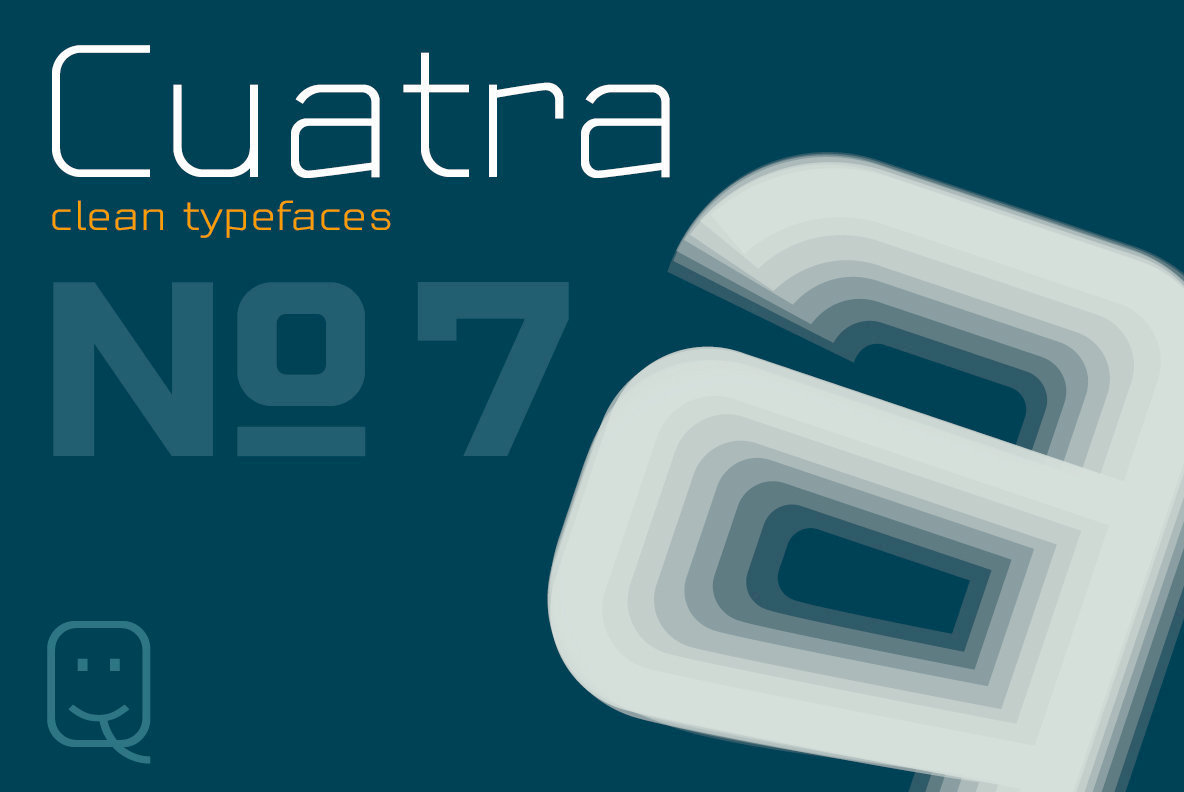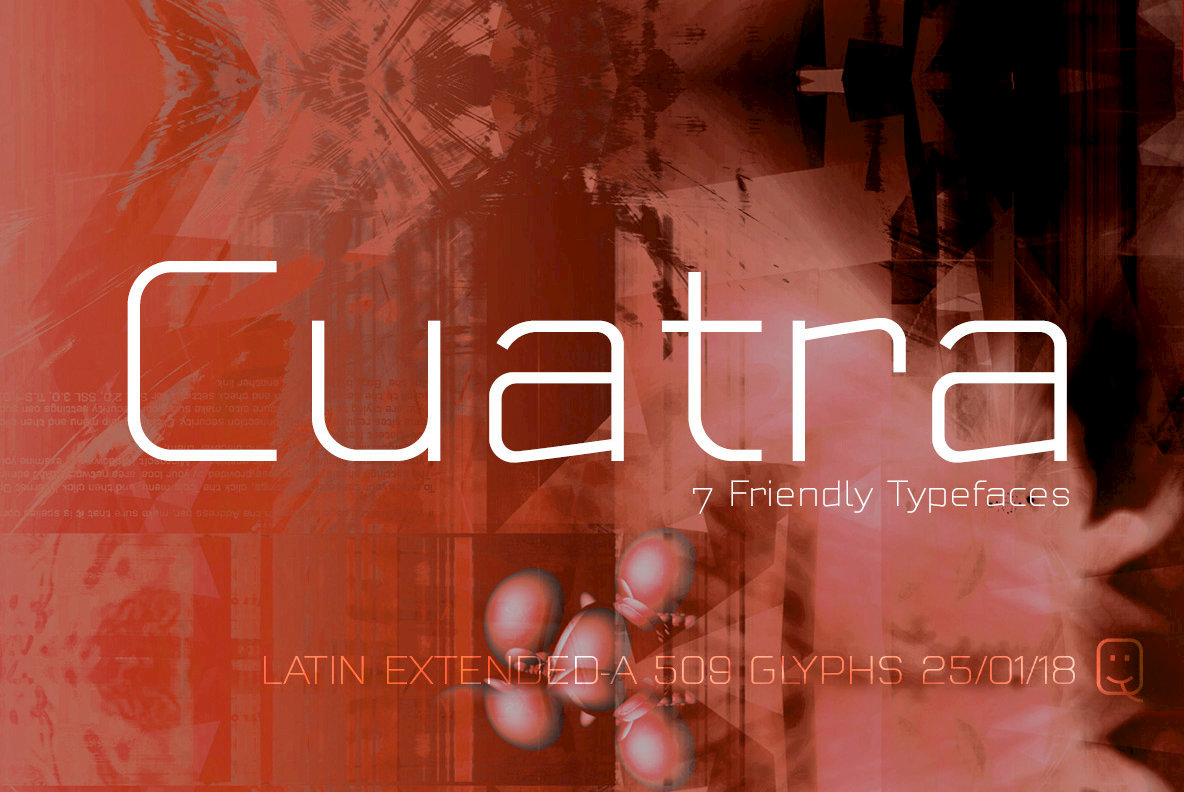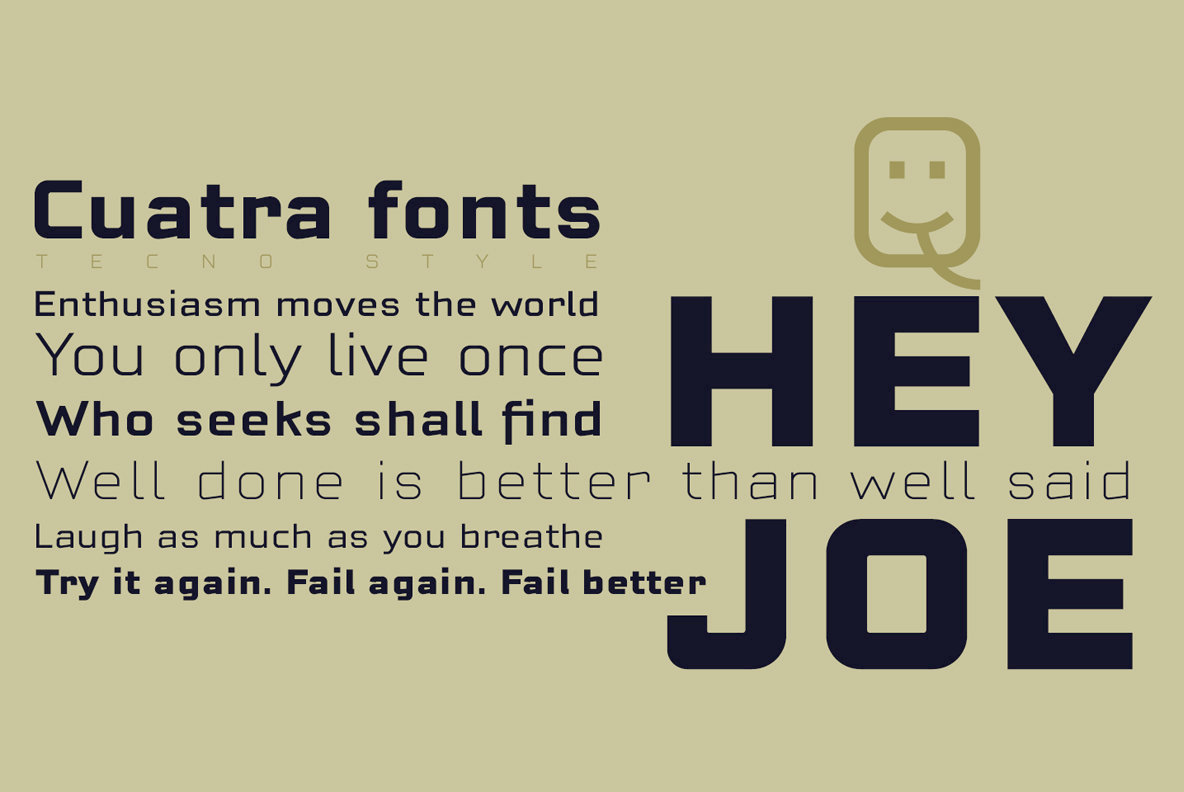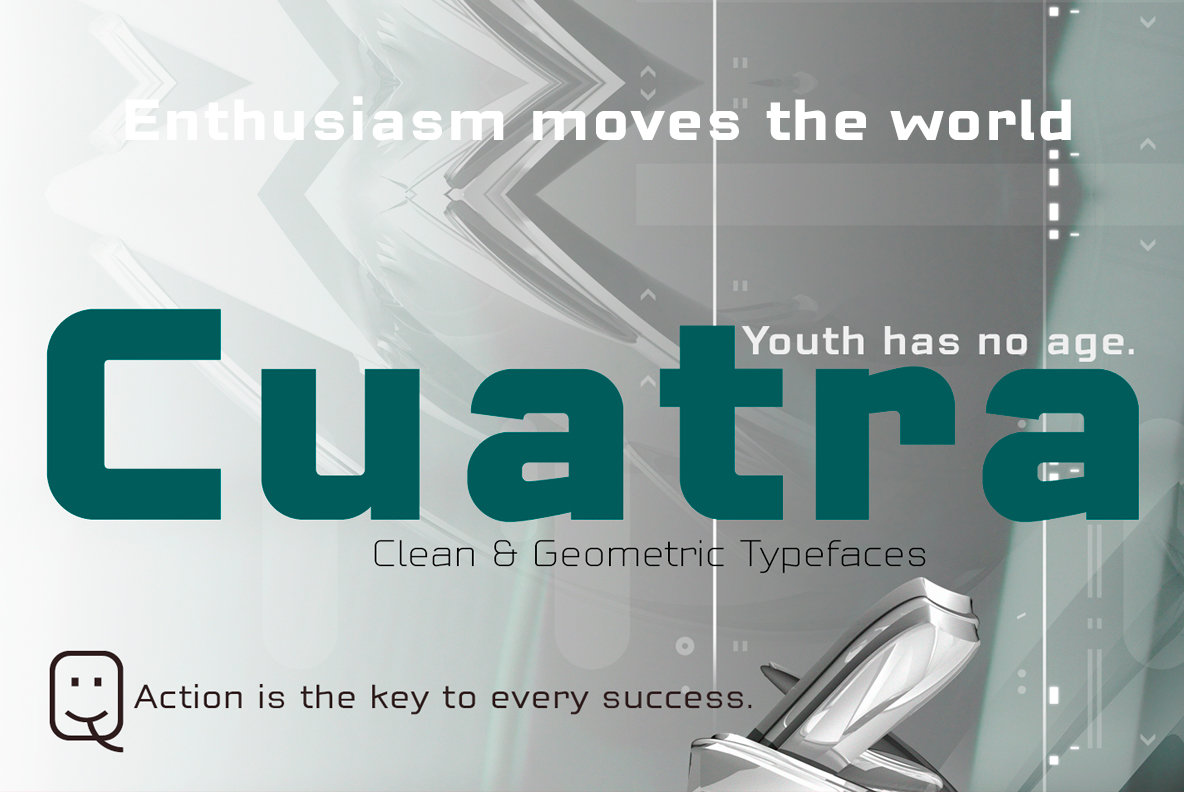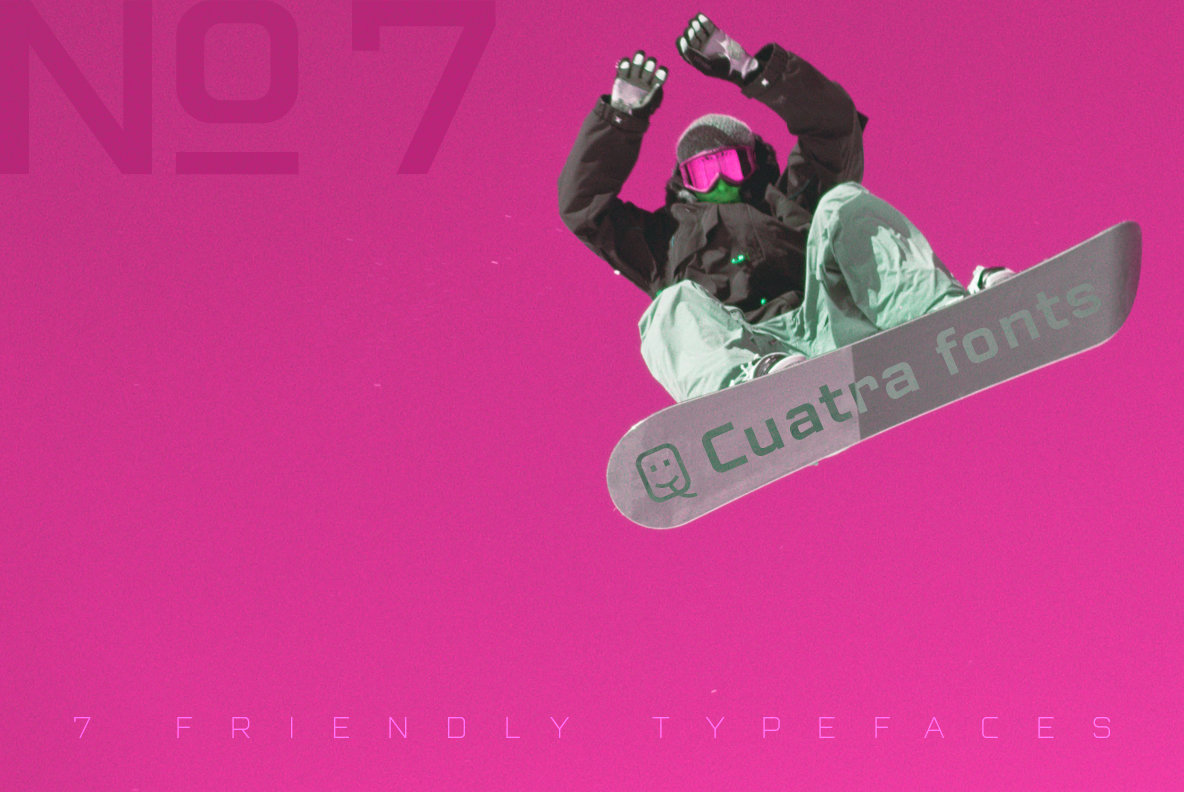
Cuatra Sans Font
Cuatra Thin
Cuatra Light
Cuatra Book
Cuatra Roman
Cuatra Medium
Cuatra Bold
Cuatra Heavy
Cuatra Sans epitomizes the essence of contemporary typography with its geometric foundations and a distinctly techno aesthetic. Designed for maximum readability, it maintains meticulous attention to letter proportions, metrics, and kerning. This ensures clarity across both headlines and paragraph text, making it a versatile choice for a range of design applications.Cuatra Sans: A Modern Geometric Typeface